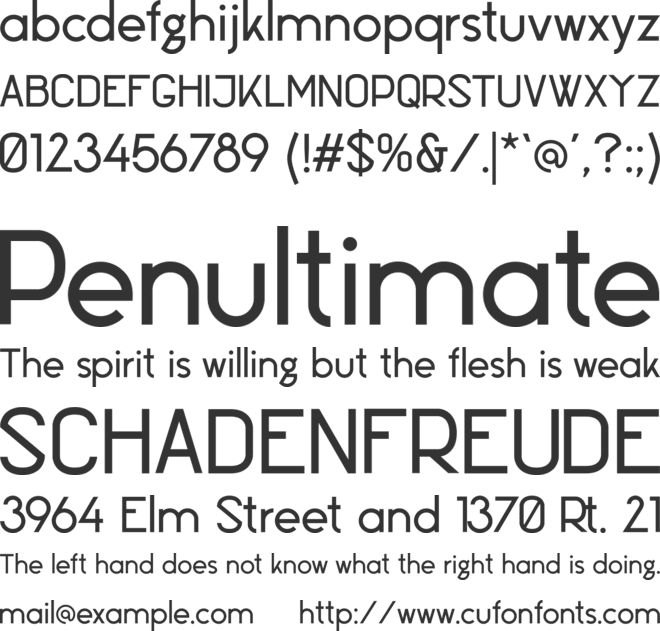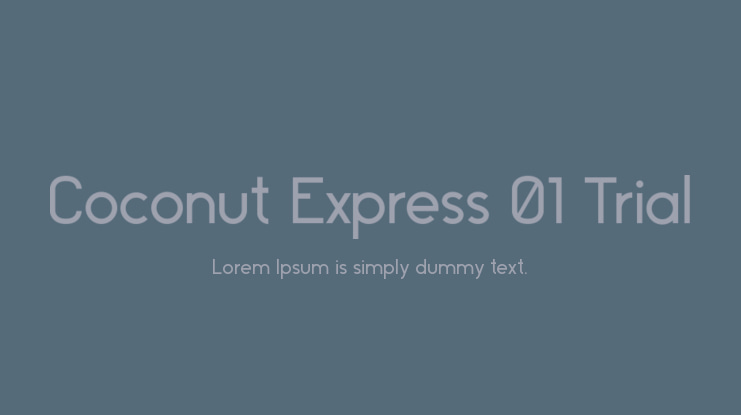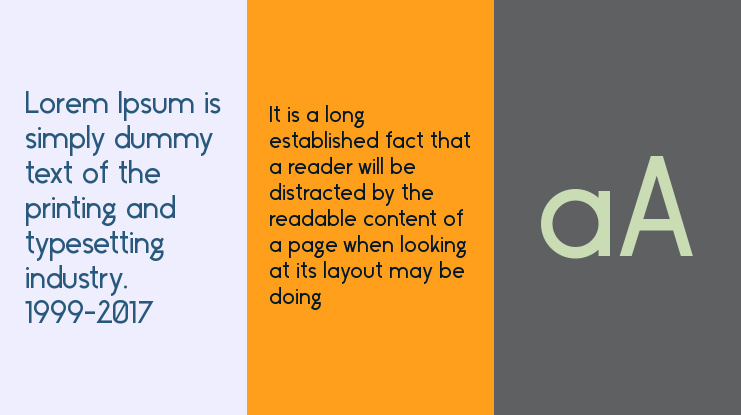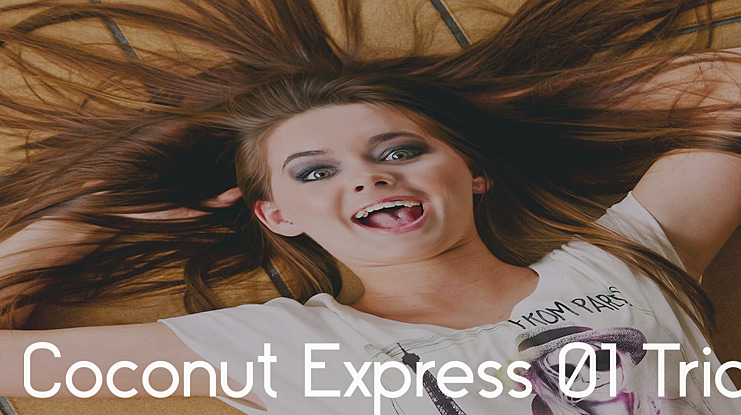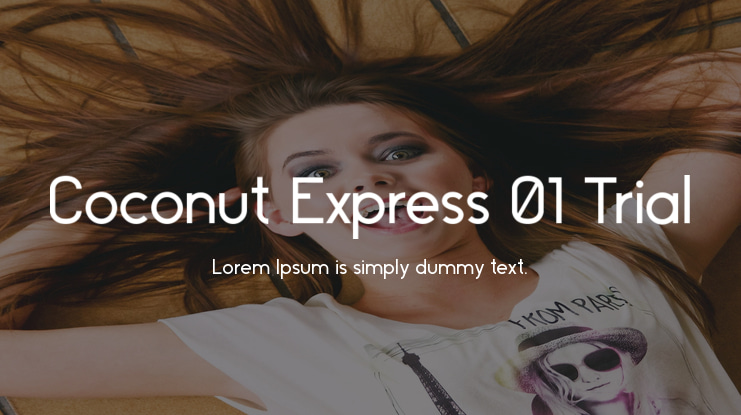
Coconut Express 01 Trial Font
Coconut Express 01 is a geometric san serif typeface and has some interesting Characters. For example the g, S, ?,... Tis is the Trial-Version Buy the Full-Version @ https://creativemarket.com/nizedesign/538054-Coconut-Express-Font